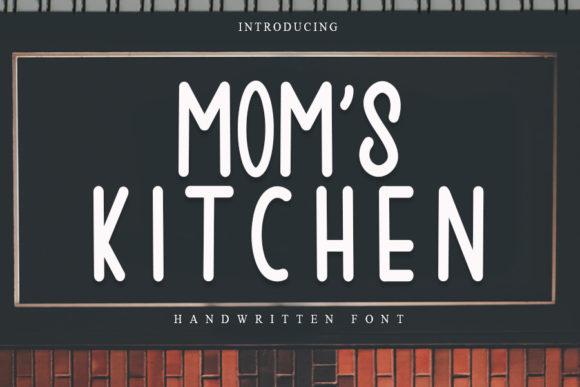
**Moms Kitchen Font: The Epitome of Culinary Excellence for Your Digital Creations**
In a culinary realm where taste and presentation harmoniously dance, there exists a font that captures the essence of gastronomic artistry – the exquisite, sans serif font known as "Moms Kitchen."
Crafted with the expert hand of Inermedia Studio, this typographic masterpiece dances with the grace of classic calligraphy, inviting you on a culinary adventure that will leave your digital creations sizzling with style.
Moms Kitchen is no ordinary font, it's a culinary journey, a typographic extravaganza that brings the warmth of a family kitchen to your digital creations.
**The Delectable Characteristics of the "Moms Kitchen" Font:**
1. **A Culinary Symphony:**
Savor the flavorsome fusion of classic calligraphy and modern aesthetics that make "Moms Kitchen" a feast for your creative appetite.
2. **Visual Versatility:**
From menus that stillosgur кa mouthwatering delight to cookbooks that exude an aroma of culinary expertise, "Moms Kitchen" serves up a visual feast in any context.
3. **The Perfect Spice for Digital Creations:**
Enhance your websites, social media posts, and graphic designs with a font that adds a dash of culinary charm, attracting foodies and epicureans alike.
4. **Your Signature Dish of Fonts:**
Express your unique culinary vision with "Moms Kitchen" as your trusted ingredient, creating a distinct typographic identity that resonates with your audience.
5. **An Inspiration for Your Digital Kitchen:**
Elevate your blog posts, e-commerce platforms, and online stores with a font that turns each page into a culinary masterpiece.